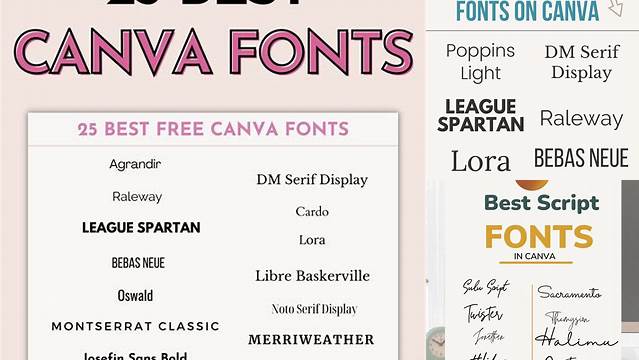
Free Canva Fonts List: Best Fonts For Stunning Designs
Hey guys! Are you ready to take your designs to the next level? If you're anything like me, you're always on the lookout for ways to make your projects pop. One of the easiest and most effective ways to do that is by using fantastic fonts. And guess what? Canva has a treasure trove of awesome, free fonts just waiting for you to use! In this article, we're going to dive deep into the world of free Canva fonts, giving you a comprehensive list to help you find the perfect typography for your next project. We'll explore different font styles, how to access them, and even some tips on how to pair them effectively. Get ready to unleash your creativity and transform your designs with these amazing fonts! Let's jump right in and discover the secrets to choosing the best free Canva fonts for your projects! This guide will help you navigate the vast library of fonts, ensuring that you select the perfect ones to complement your designs and captivate your audience. Whether you're a seasoned designer or just starting out, finding the right fonts can significantly enhance your visual communication. So, grab a coffee (or your favorite beverage), get comfortable, and let's explore the wonderful world of Canva fonts together. This is your ultimate guide to selecting the perfect fonts and creating stunning visuals. We're going to help you unlock the full potential of Canva's font library. Understanding how to choose and combine fonts can be a game-changer for your projects, so pay close attention, and let's get started!
What Makes a Great Font? Key Considerations
Alright, before we get into the nitty-gritty of specific fonts, let's talk about what makes a great font. Choosing the right font is more than just picking something that looks pretty; it's about communicating effectively and enhancing your message. Several key factors come into play. Firstly, consider readability. Your font needs to be easy to read, especially in the context you're using it. If it's for a large body of text, a simple, clear font is often best. For headlines or shorter text, you might have more freedom to use decorative or display fonts. Think about the context. What's the overall tone of your design? Is it playful, professional, serious, or modern? The font you choose should align with that tone. A bold, sans-serif font might be perfect for a modern brand, while a more classic serif font could suit a traditional business. Think about font pairing. Combining fonts can create visual interest, but it's also easy to mess up. Aim for contrast and harmony. Use different font styles, weights, or sizes to create a balance. Another crucial point is the target audience. Who are you trying to reach? A font that appeals to one audience might not resonate with another. Keep your target audience in mind when making your font selections. Remember to consider the licensing of the fonts. Canva's free fonts are generally available for commercial use, but it's always a good idea to double-check. Lastly, the fonts style. Should it be a serif, sans-serif, script, or display? Each style has its unique characteristics and best uses. Serif fonts, with their small strokes at the ends of letters, often convey a sense of tradition and formality, making them suitable for body text and headings in professional documents. Sans-serif fonts, lacking these strokes, present a clean and modern look, ideal for digital interfaces and contemporary designs. Script fonts mimic handwriting, adding a personal touch to invitations, logos, and decorative elements. Display fonts, which are highly stylized and often bolder, are perfect for grabbing attention in headlines, posters, and other eye-catching visuals. Choosing the right style is essential for making your design visually appealing and effective.
Font Readability: A Crucial Element
Readability is king, folks! Seriously, what good is a beautiful font if no one can actually read it? When you're choosing fonts, particularly for body text, readability should be your top priority. Start by considering the size. A font that looks great at a large size might be a nightmare at a smaller one. Make sure your font is legible at the size it will be used. Think about the font weight. Lighter fonts can be harder to read, especially in smaller sizes. Heavier fonts might be more readable, but too much weight can also make the text look clunky. Consider the font style. Italic and script fonts can be stylish, but they're often harder to read than regular or bold fonts. Use them sparingly for body text. Test the font on different backgrounds. Some fonts are harder to read against certain backgrounds. Make sure there's enough contrast between the font and the background. Be mindful of the letter spacing. Some fonts have tight spacing, which can make them difficult to read, especially in longer paragraphs. Consider the line height. Adjusting the line height can also significantly improve readability. Make sure there's enough space between lines so the text doesn't look cramped. Don't forget to test your design! Before you finalize your project, test the font on different devices and in different contexts to ensure it's readable for everyone. These little details go a long way in ensuring your message is clear and easy to understand. Also, make sure the font is accessible. This means the font is easy to read for people with visual impairments. Consider the use of bold text, larger font sizes, and sufficient contrast between the text and the background. Accessibility is a key factor in design!
Top Free Canva Fonts to Elevate Your Designs
Now, let's get to the fun part: the fonts themselves! Canva has a wide range of free fonts to choose from. I'm going to list some of my favorites, divided into categories to help you find the perfect font for your project. We'll explore popular choices and some hidden gems to help you unlock your design potential. This list is designed to provide you with a head start, but always experiment to find the best fit for your specific needs. Remember, the key is to try various fonts and combinations. Let's dive into the exciting world of Canva fonts! Here are a few of the best free Canva fonts that you absolutely must check out. This section is dedicated to helping you discover the best Canva fonts and unlock your design potential. These fonts are great for a variety of uses, so be sure to give them a try! This section aims to make it easy for you to locate and utilize the ideal fonts for your projects. These selections can significantly enhance your designs.
Sans-Serif Fonts: Clean and Modern
Sans-serif fonts are the go-to choice for a clean, modern look. They're incredibly versatile and work well for both headlines and body text. Here are some of my favorites.
- Open Sans: This is a classic for a reason! Open Sans is a highly readable, versatile font that works well in various contexts. It's a safe bet for body text and headlines alike.
- Montserrat: Montserrat is a geometric sans-serif font with a clean and modern feel. It's great for headlines, titles, and any design where you want a bold statement.
- Lato: Another popular option, Lato is a well-balanced sans-serif font that's both friendly and professional. It's a great choice for a variety of design projects.
- Poppins: Poppins is a geometric sans-serif font with a friendly, approachable vibe. It's perfect for websites, presentations, and social media graphics.
- Raleway: This elegant sans-serif font is perfect for headlines and titles. It's known for its clean lines and modern aesthetic, making it ideal for sophisticated designs. It works well in a variety of formats. The various weights of this font provide great flexibility.
Serif Fonts: Classic and Elegant
Serif fonts add a touch of elegance and tradition to your designs. They're often used for more formal projects or to create a classic look. Here are some of my top picks:
- Playfair Display: This is a high-contrast serif font that's perfect for headlines and titles. It has a refined and elegant look that will make your designs stand out.
- Lora: Lora is a well-balanced serif font that works beautifully for body text. It's easy to read and has a warm, friendly feel.
- Crimson Text: Crimson Text is a classic serif font designed for body text. It's highly readable and gives a traditional feel to your designs.
- Merriweather: This is a great choice for readability, especially in body text, and it works well for print and digital projects.
- Roboto Slab: This is a slab serif font that blends classic with modern elements. It is perfect for headings and brings a sturdy, bold presence to any design.
Script Fonts: Handwritten and Personal
Script fonts add a personal and handwritten touch to your designs. Use them sparingly to make a statement, but avoid using them for large blocks of text.
- Dancing Script: This is a fun and playful script font that adds a touch of personality to your designs. It's great for invitations, quotes, and social media graphics.
- Great Vibes: Great Vibes is an elegant script font that's perfect for creating a sophisticated look. It's ideal for logos, branding, and invitations.
- Caveat: Caveat is a more casual script font, great for creating a relaxed, informal vibe.
- Yellowtail: A slightly bolder script font, Yellowtail adds a warm and inviting feel to your designs. It's excellent for personal projects and greetings.
Key Takeaways
- Explore different font styles: Canva has a diverse selection of fonts, so experiment with different styles to find the best fit for your project.
- Consider font pairing: Use contrasting fonts to create visual interest and hierarchy in your designs.
- Prioritize readability: Make sure your fonts are easy to read, especially for body text.
- Don't be afraid to experiment: Try different combinations and styles until you find the perfect look for your design. This is the most enjoyable part!